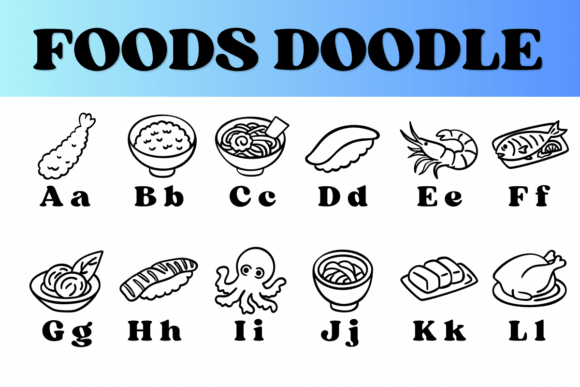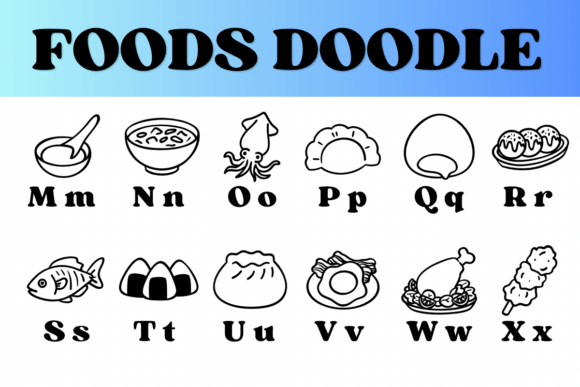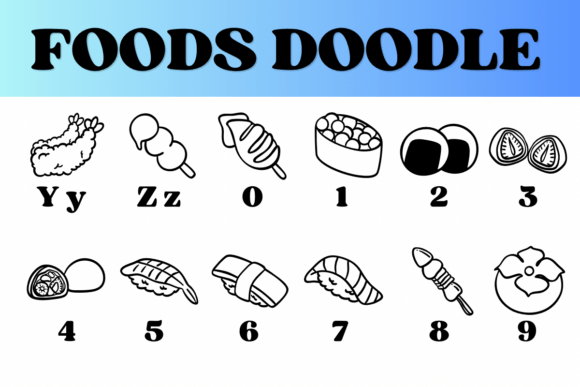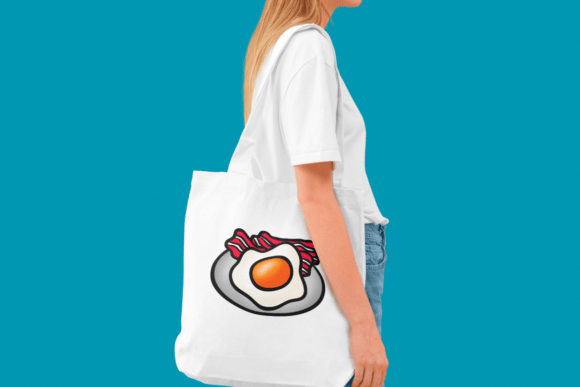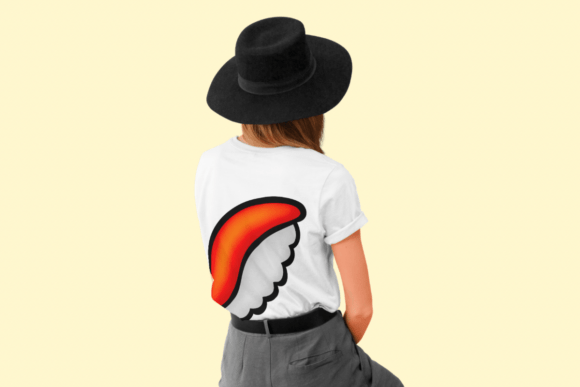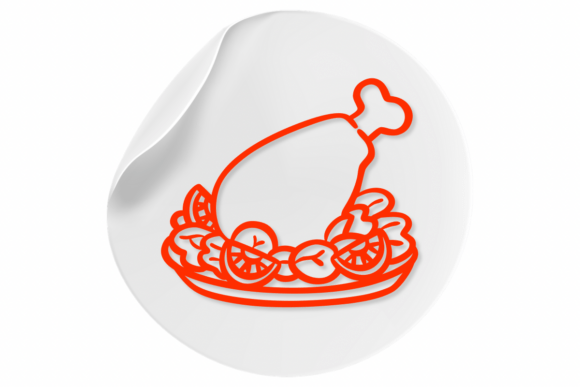
Introducing Foods Doodle Font: Unleash Your Creativity with a Sketchy Twist
Are you a designer, crafter, or DIY enthusiast looking for a unique font to add a personal touch to your projects? Look no further than Foods Doodle Font, a delightful dingbats font that brings a sketchy theme to the table. With its playful and artistic vibe, this font is perfect for a wide range of creative endeavors, from wedding invitations and crafts to decorations, logos, and beyond.
What is Foods Doodle Font?
Foods Doodle Font is a specially designed dingbats font that features a charming sketch style. Dingbats fonts, also known as symbol fonts, are a type of font that consists of graphical symbols, such as icons, shapes, and illustrations, rather than traditional letters and numbers. Foods Doodle Font takes this concept to the next level with its food-themed illustrations, making it an excellent choice for projects that require a touch of whimsy and personality.
Key Features of Foods Doodle Font
- Sketchy style: Foods Doodle Font boasts a charming, hand-drawn look that adds a personal touch to any project.
- Food-themed illustrations: The font features a wide range of food-related symbols, from fruits and vegetables to desserts and drinks.
- Versatile: Use Foods Doodle Font for various creative projects, including wedding invitations, DIY crafts, decorations, logos, and more.
Creative Ways to Use Foods Doodle Font
Foods Doodle Font is an incredibly versatile font that can be used in a multitude of creative ways. Here are a few ideas to get you started:
- Wedding invitations: Add a touch of whimsy to your wedding invitations with Foods Doodle Font’s charming illustrations.
- DIY crafts: Use the font to create custom labels, cards, and decorations for your DIY projects.
- Decorations: Create eye-catching posters, signs, and banners with Foods Doodle Font’s playful illustrations.
- Logos: Use the font to create a unique and memorable logo for your food-related business or brand.
- Social media graphics: Add a personal touch to your social media graphics, such as recipe illustrations or food-themed quotes.
Tips for Using Foods Doodle Font
To get the most out of Foods Doodle Font, here are a few tips to keep in mind:
- Experiment with colors: Foods Doodle Font looks great in a variety of colors, so don’t be afraid to experiment and find the perfect hue for your project.
- Mix and match illustrations: Combine different illustrations from the font to create a unique and eye-catching design.
- Use it with other fonts: Pair Foods Doodle Font with other fonts to create a visually appealing contrast.
Foods Doodle Font is a delightful dingbats font that adds a touch of whimsy and personality to any project. With its sketchy style and food-themed illustrations, this font is perfect for designers, crafters, and DIY enthusiasts looking to create unique and eye-catching designs. Whether you’re working on a wedding invitation, DIY craft, or logo, Foods Doodle Font is sure to inspire your creativity and take your project to the next level.